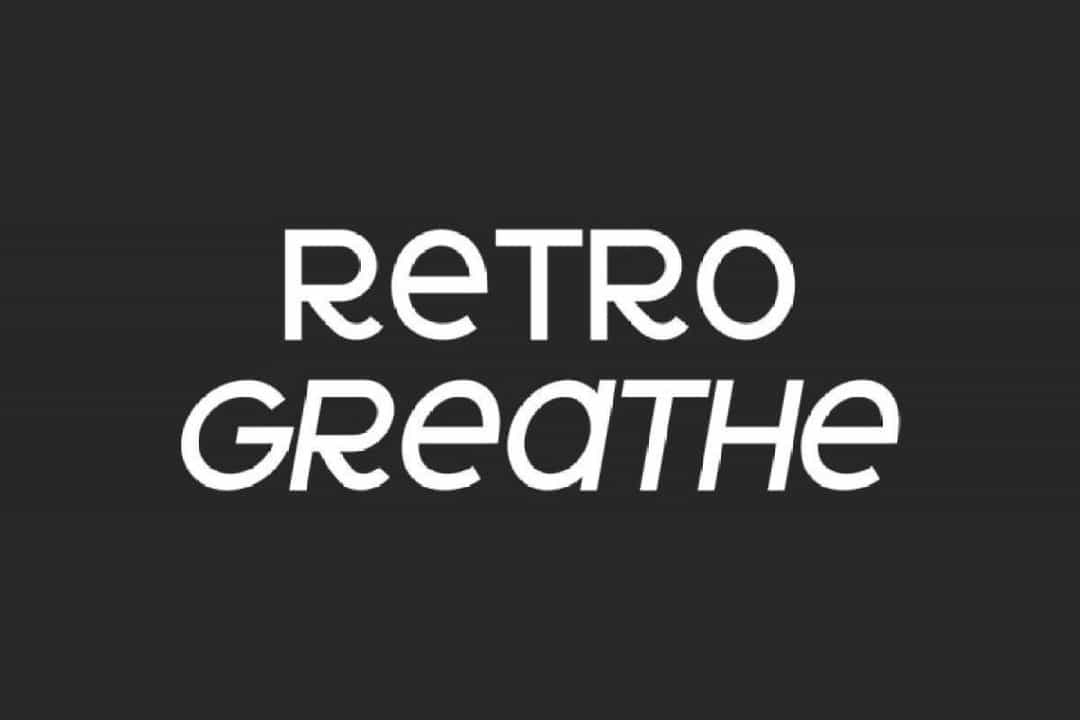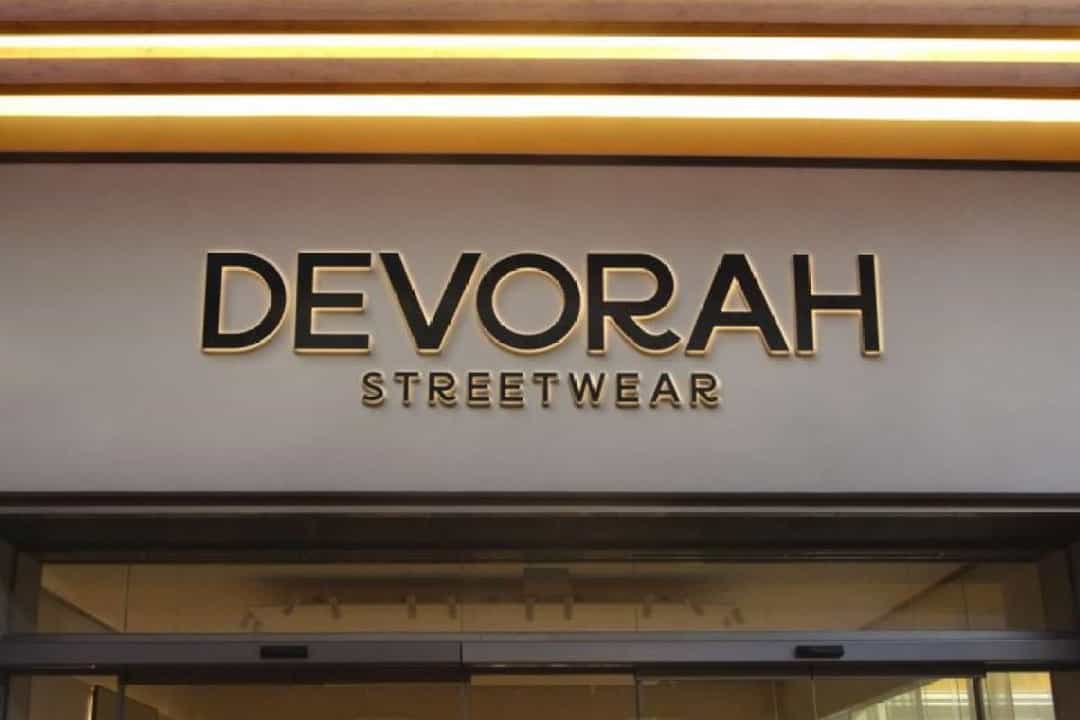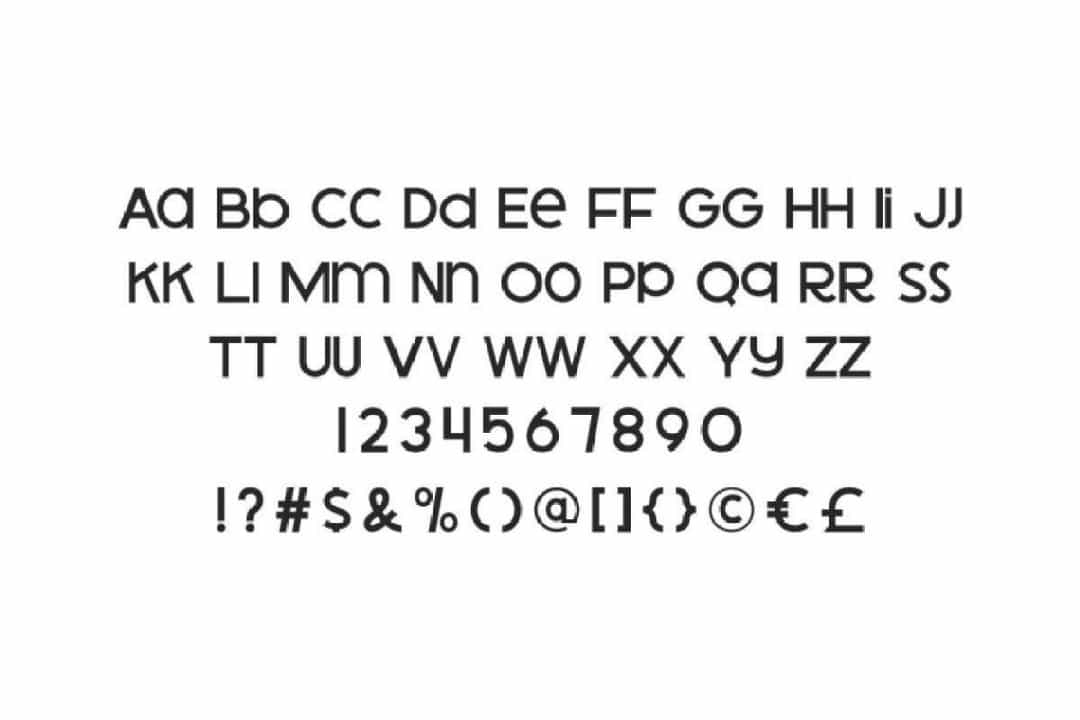
Retro Greathe Font is an original and modern sans serif display font that comes in two styles – Regular and Italic. Perfect for use across various sectors including clothing, art galleries and cosmetics as well as event planners and homewares stores; fashion printing; jewelry publishing; restaurants etc etc – Retro Greathe Font is ideal!